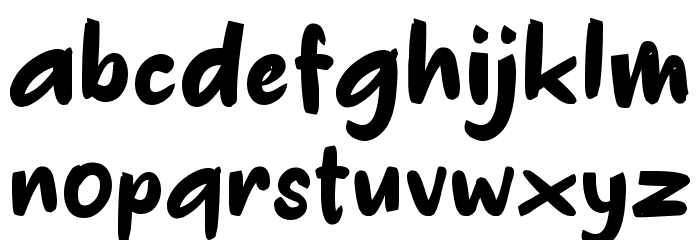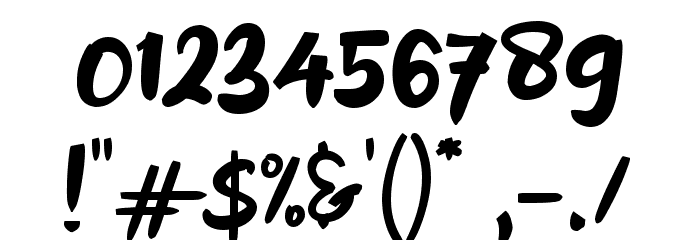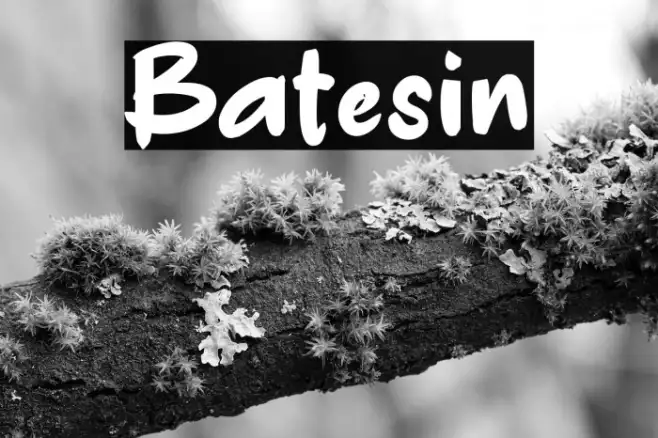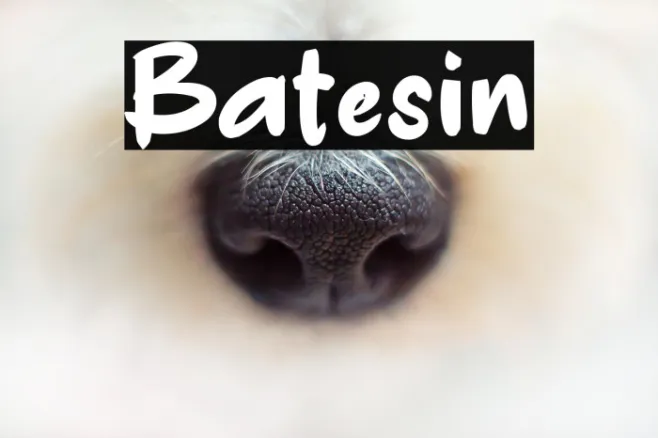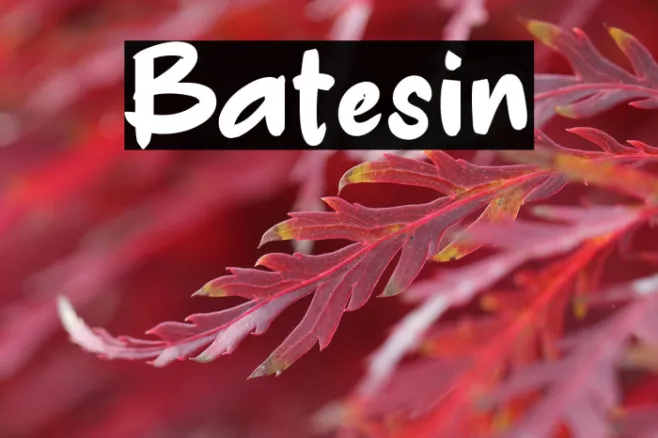
Batesin Font
This font features a bold, handwritten style with a playful and energetic appearance. The letters are slightly irregular, giving it a casual and informal feel. The strokes are thick and consistent, providing a strong visual impact. The uppercase and lowercase letters maintain a cohesive look, while the numbers and special characters complement the overall design. This font is versatile and can be used to convey a sense of fun and creativity.
- Font: Batesin
- Proposed Projects: Ideal for greeting cards, children's books, playful branding, and social media graphics.
- Overall Style: Playful